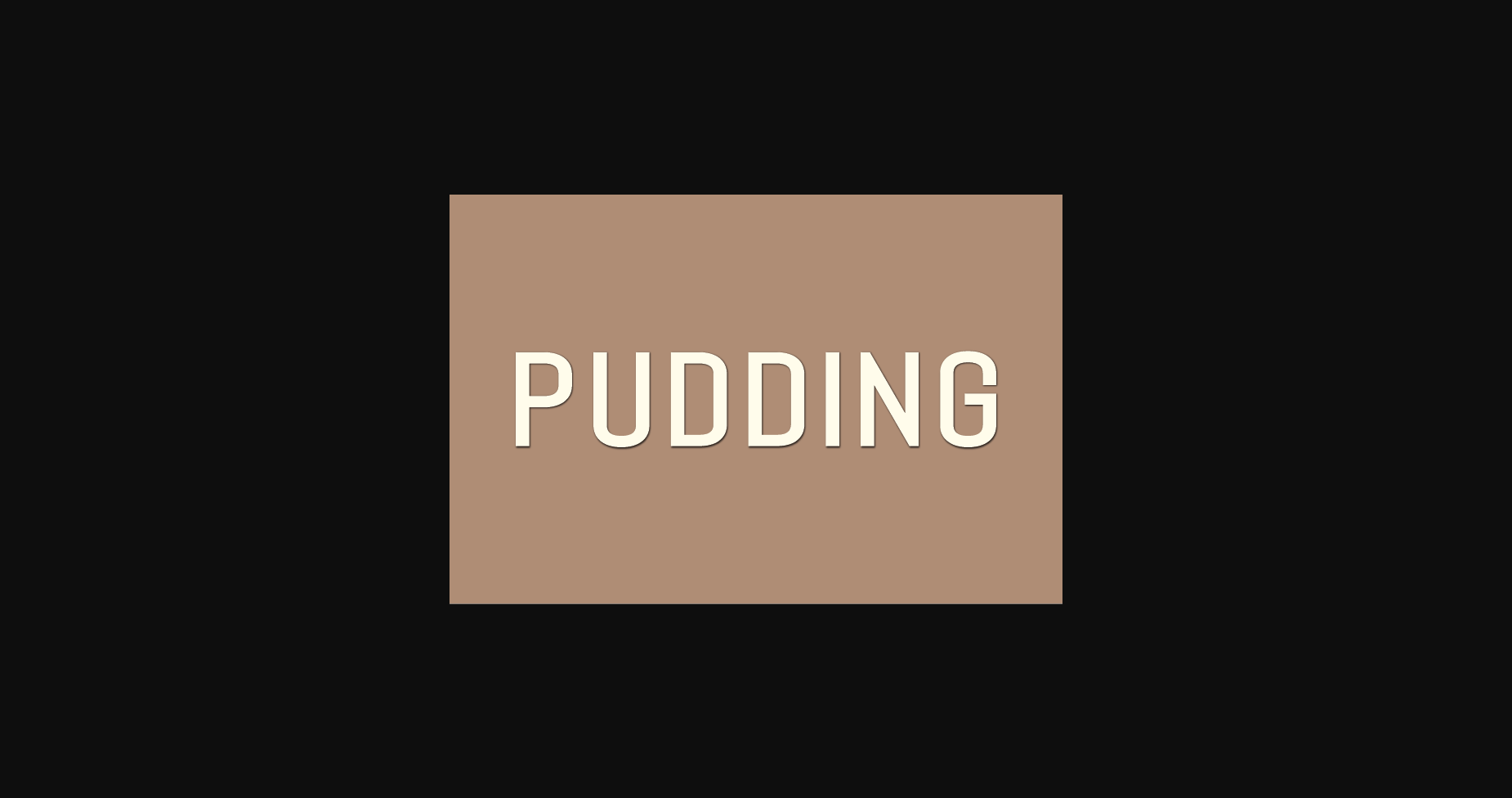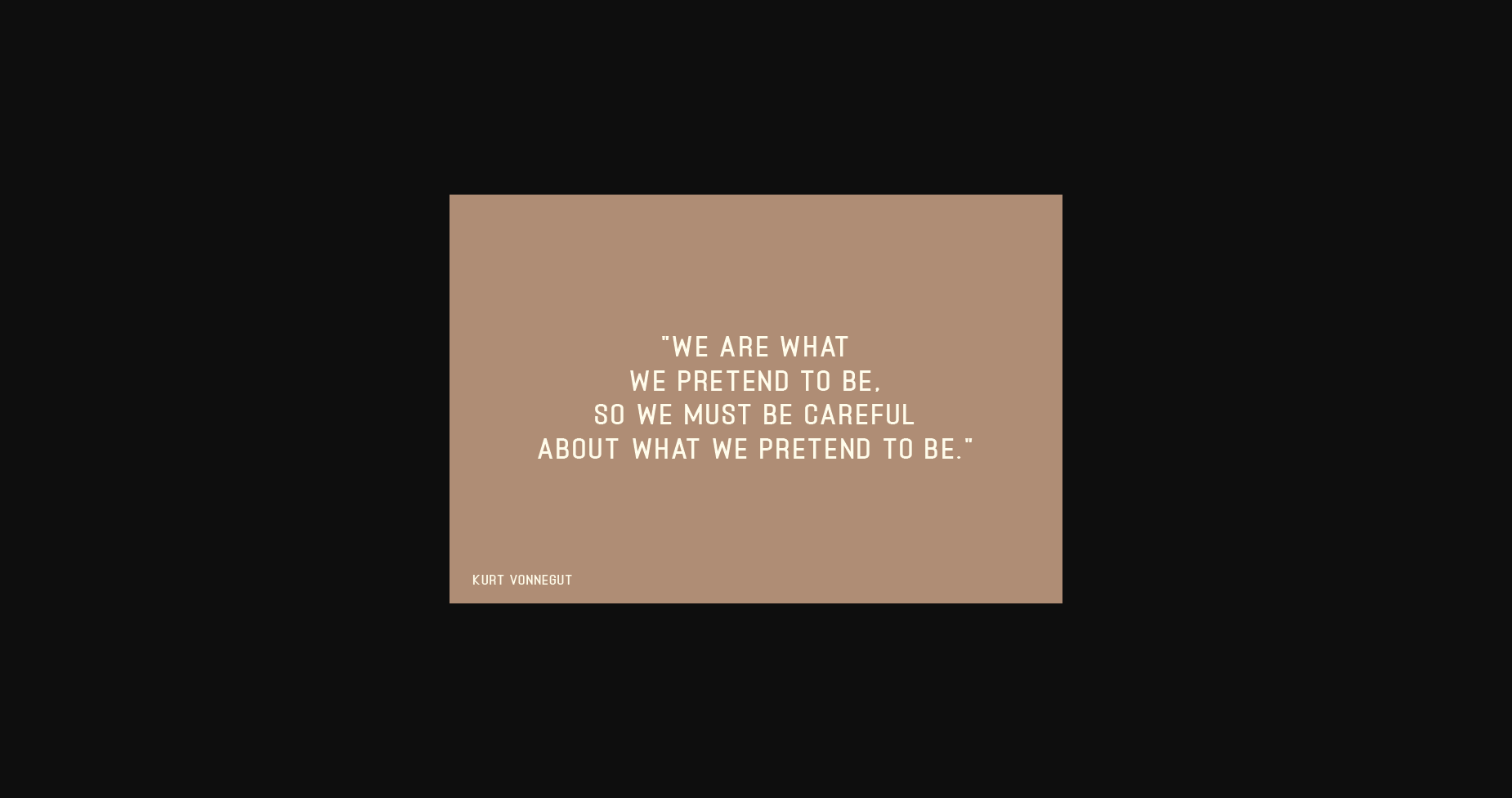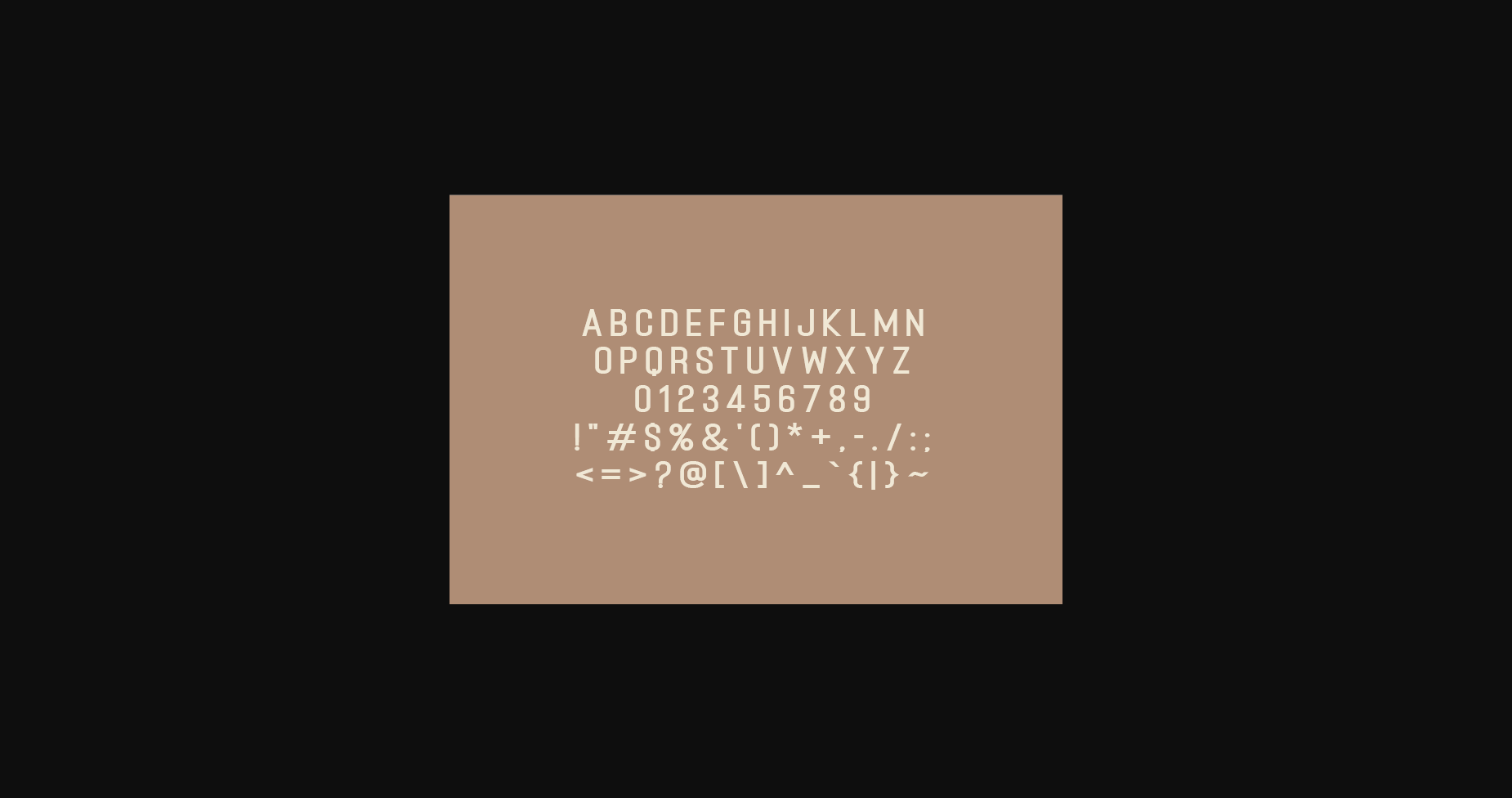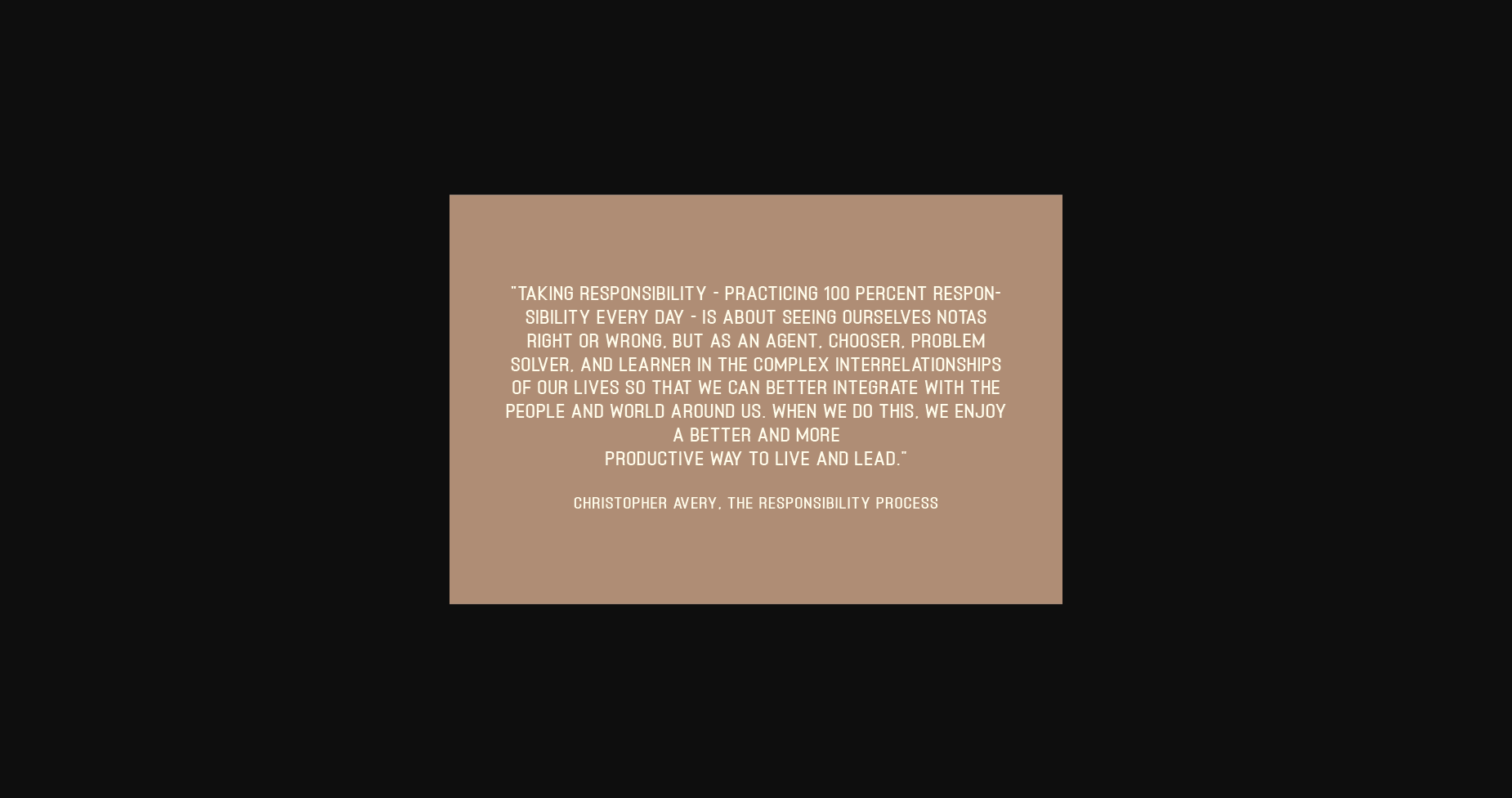
Pudding Font
About Pudding Font
Introducing Pudding, a modern, classy sans serif typeface.
An extremely versatile font, perfect for logos, weddings, invitations, quotes, advertisements, print, magazines, and more!